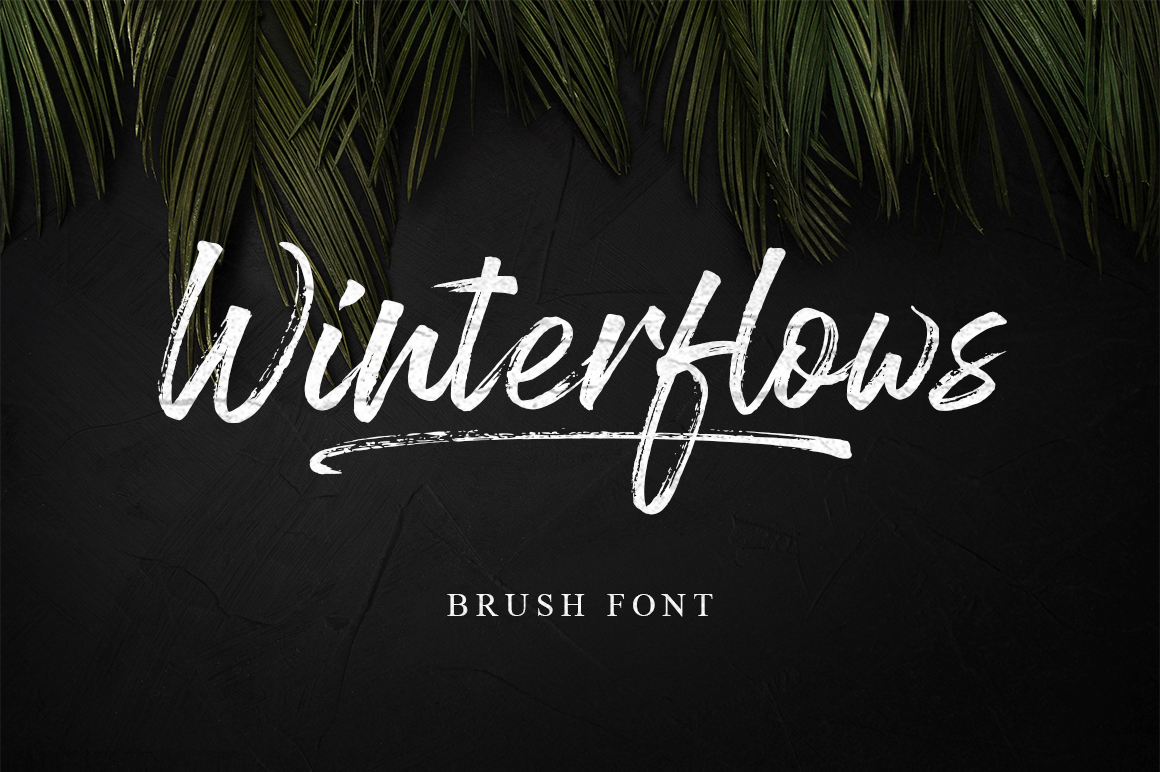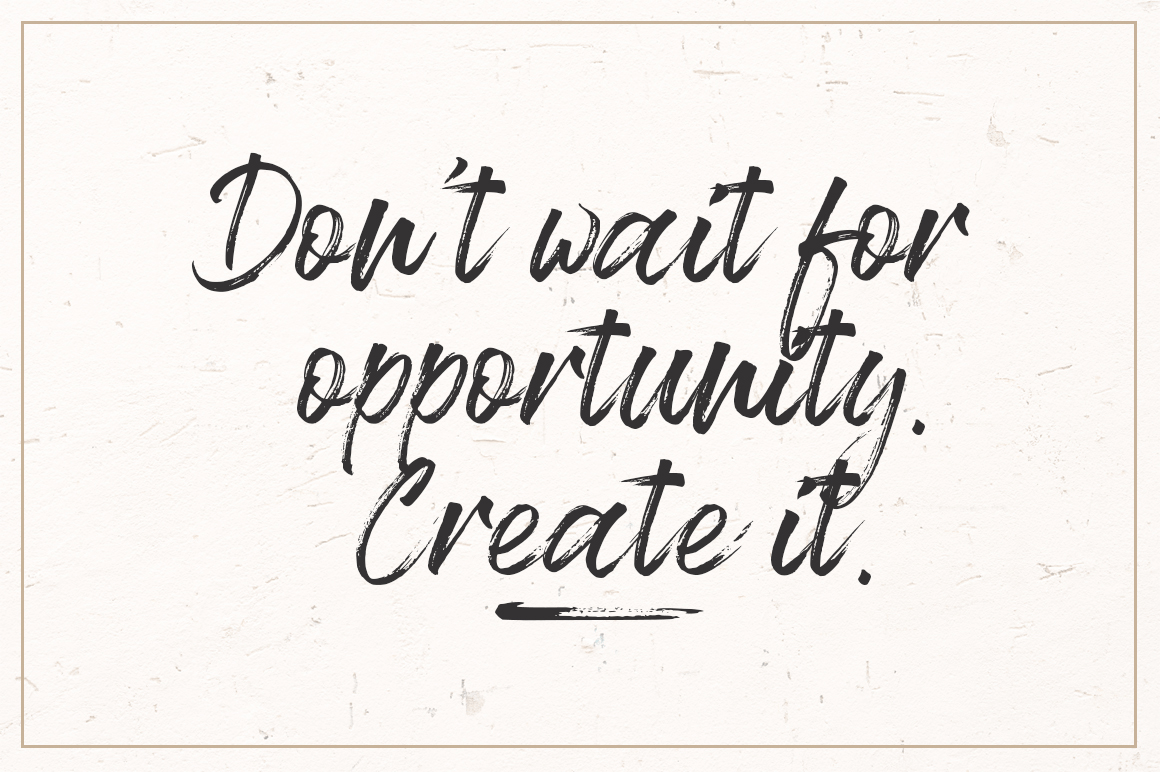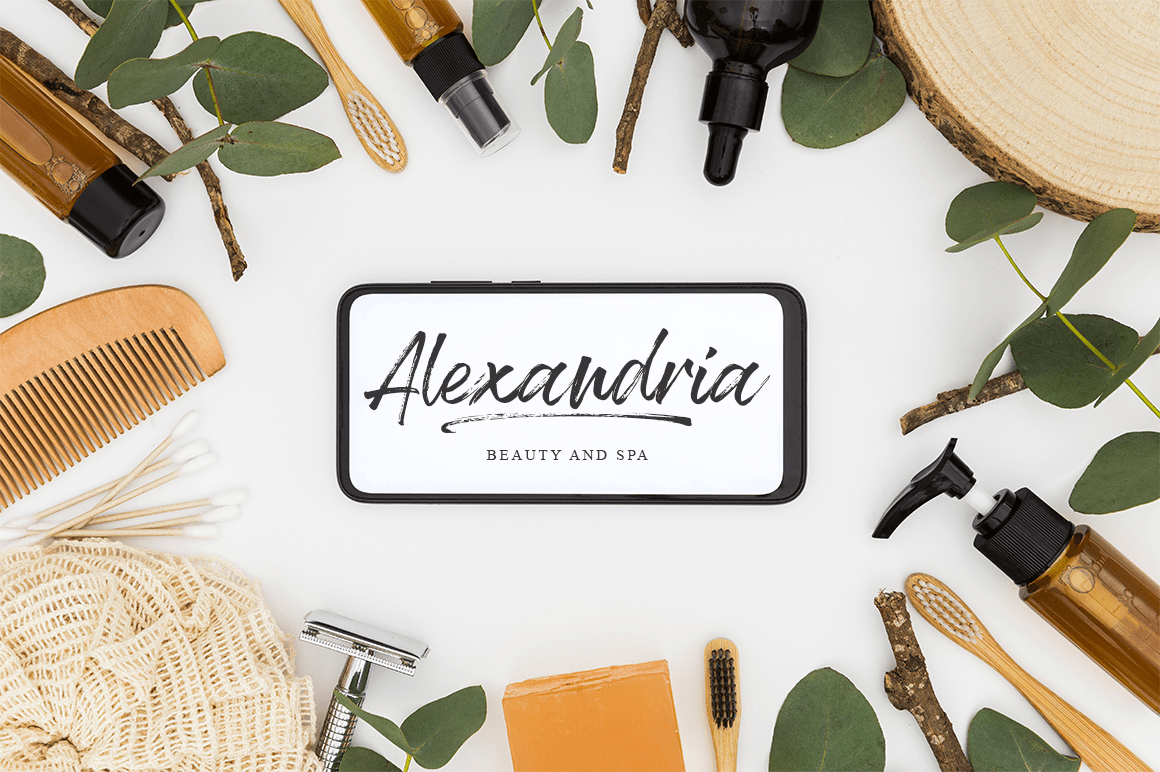
About Winterflows
Introducing Winterflows Handwritten font with quick dry strokes and a signature style. perfect for branding projects, home ware designs, product packaging or simply as a stylish text overlay to any background image or posters. Alternates Winterflows has…